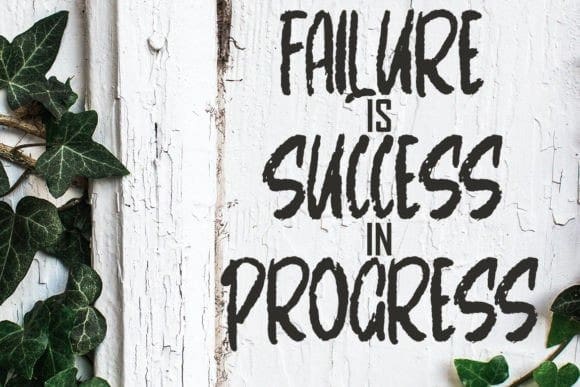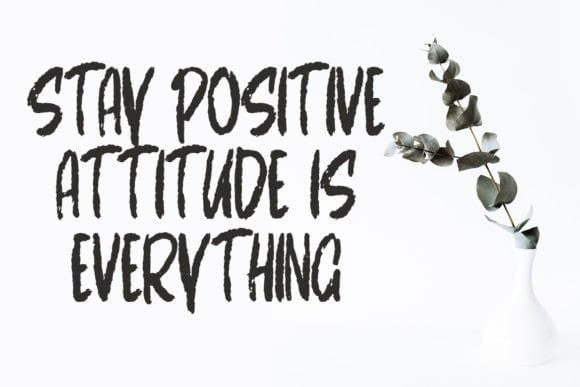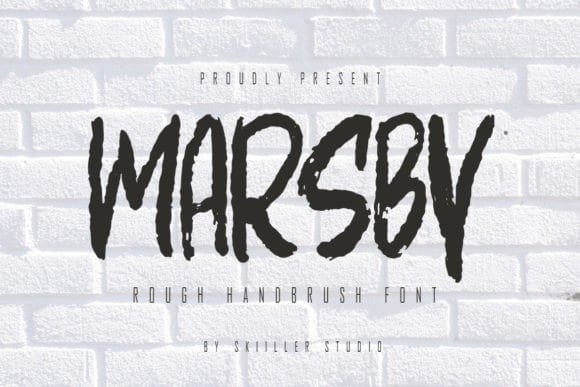
Marsby Brush Font
Marsby Brush Font is a modern handwritten textured font. It is suitable for food posters, logos, album covers, apparel, and many cool design projects.